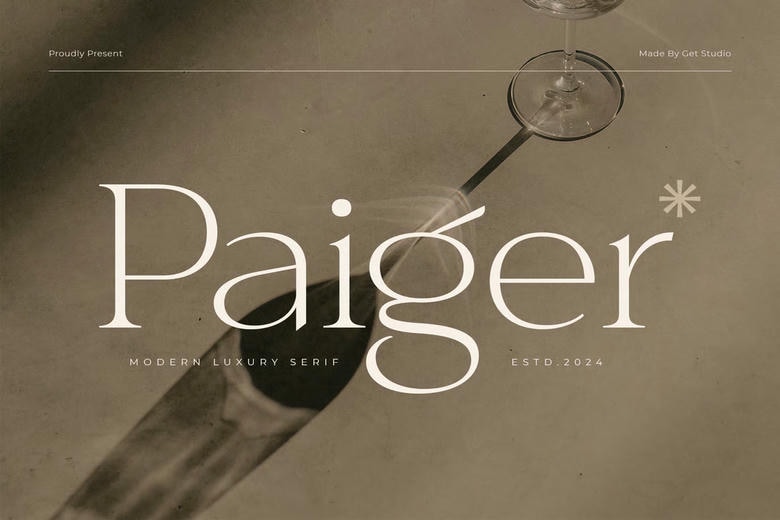
Paiger Font
Paiger is a modern luxury serif font that blends elegance with style. Its smooth lines and contemporary look give your work a sophisticated feel. Use Paiger to add a classic, refined touch to any project.
Paiger Serif Font